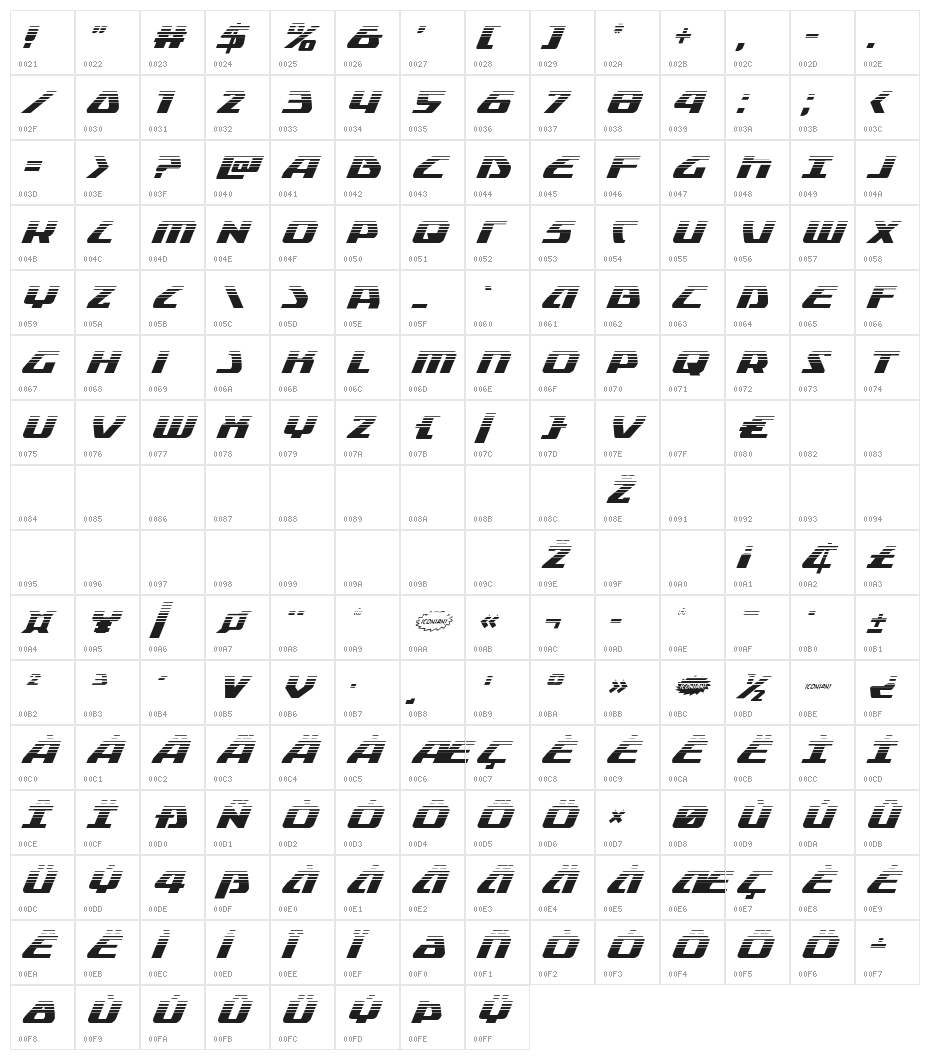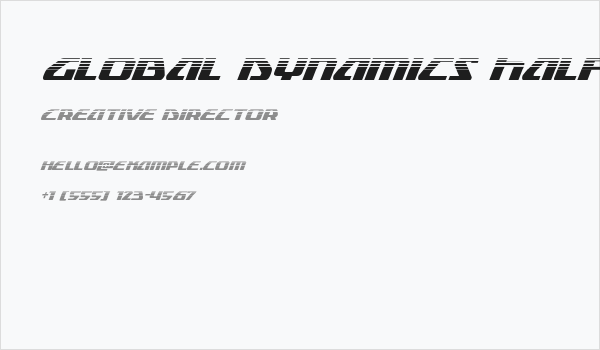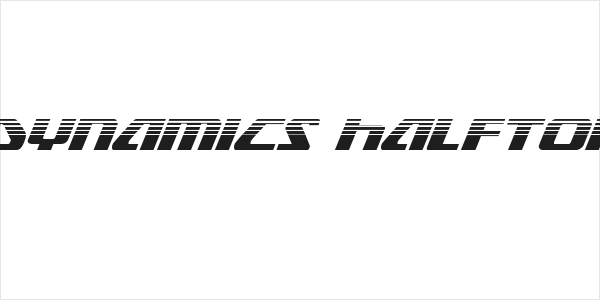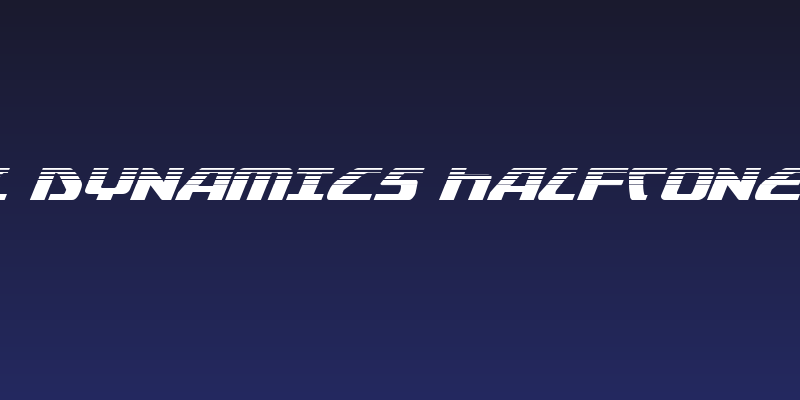
Global Dynamics Halftone Italic Font
Global Dynamics Halftone Italic Description
This font features a bold, futuristic design with a halftone effect that creates a sense of movement and dynamism. The italicized style enhances its modern appeal, making it ideal for projects that require a cutting-edge look. The characters are constructed with a series of horizontal lines, giving them a unique, segmented appearance. This design choice not only adds texture but also emphasizes the forward-leaning slant of the letters. The font's strong geometric shapes and sharp angles contribute to its high-tech aesthetic, making it suitable for technology-related branding, sci-fi themes, and digital media. The consistent use of horizontal lines across all characters ensures a cohesive look, while the bold weight provides excellent readability even at smaller sizes.
| Proposed Projects | Ideal for technology branding, sci-fi themes, digital media, and modern advertising. |